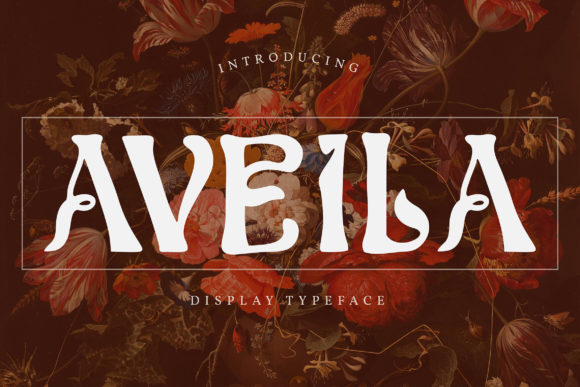
Behold! Aveila Font, the bold and captivating display font that whispers grandeur and elegance to your creative endeavors!
This isn't just any font; it's a gateway to an era of visual enchantment. Aveila's vintage roots blend seamlessly with a modern-day twist, unleashing a font that's not just aesthetically pleasing but also strikingly impactful.
Picture this: Your website, wrapped in the arms of Aveila's letterforms, exudes an air of sophistication that commands attention. Your social media posts, adorned with Aveila's characters, captivate audiences with their timeless charm.
And oh, the design possibilities! Whether you're a graphic designer painting the town with awe-inspiring visuals or a blogger weaving captivating tales, Aveila is your muse, your faithful companion. Its versatility knows no bounds; it's as comfortable in the world of logos as it is in invitations, posters, and branding projects.
But Aveila isn't just a pretty face; it's a powerhouse of functionality too. PUA-encoded, it grants you effortless access to a treasure chest of glyphs and swashes. Unleash your creativity and let your imagination run wild as you explore the endless possibilities that await.
Aveila, the 2014 Best Font for Web Design, isn't just a font; it's an experience, an expression of your unique style and vision. Embrace it, and watch as your creations transform into captivating masterpieces.